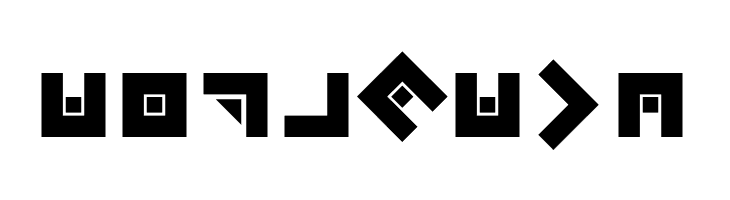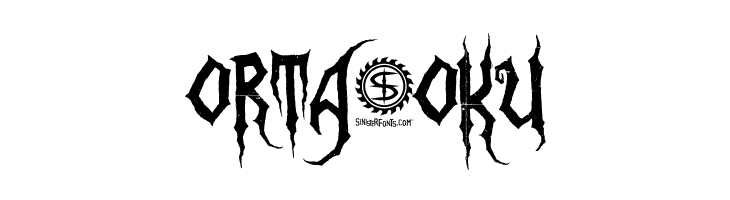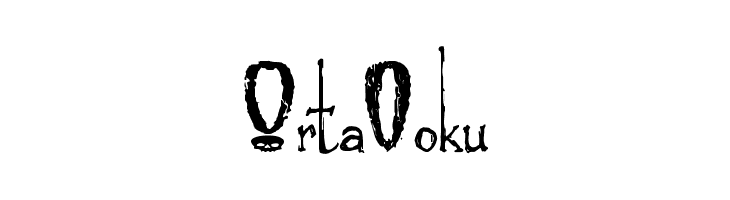
A bold, geometric font with a futuristic, digital aesthetic.
A bold, jagged font with a horror and gothic theme.
A spooky, jagged font with a distressed, eerie style perfect for Halloween themes.